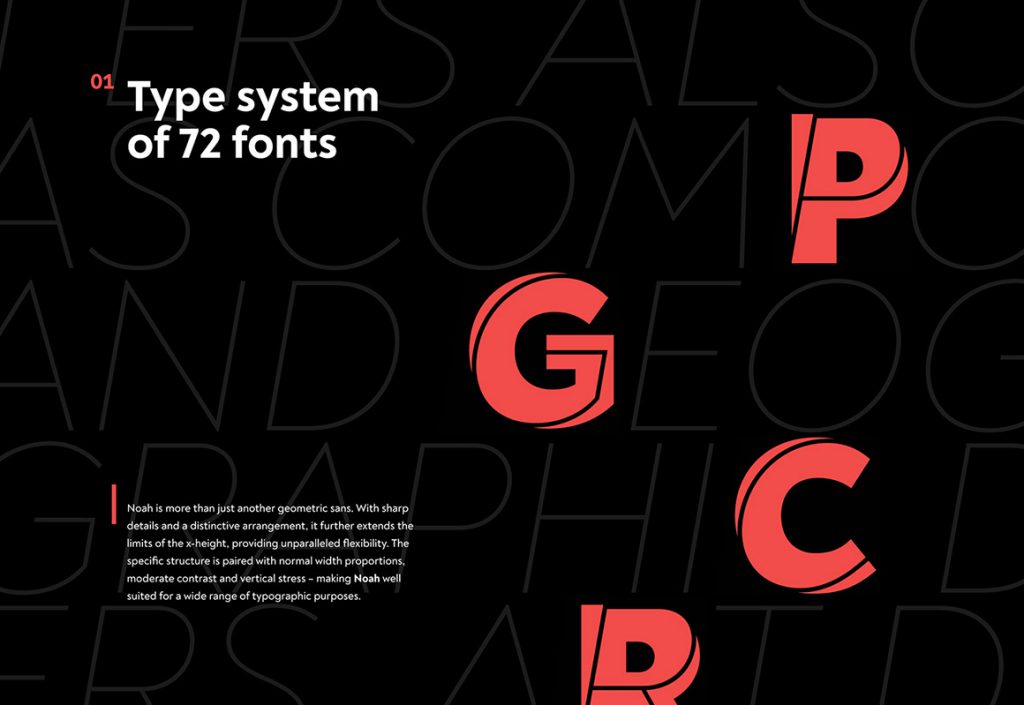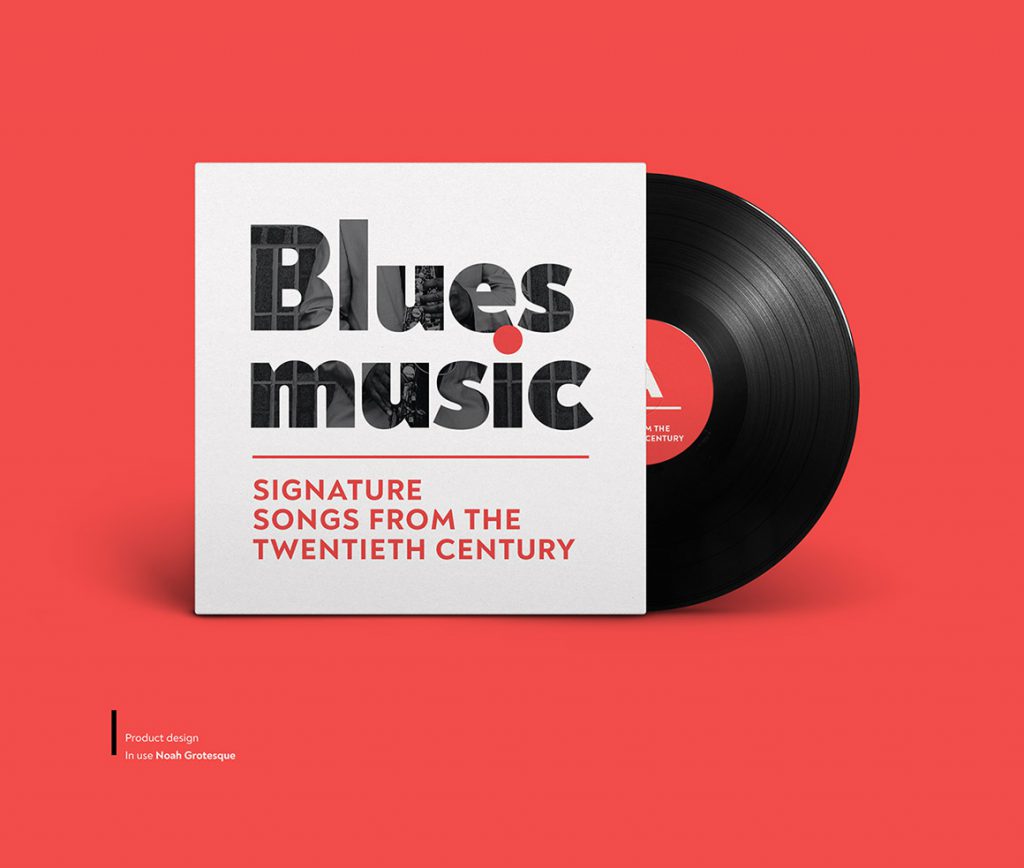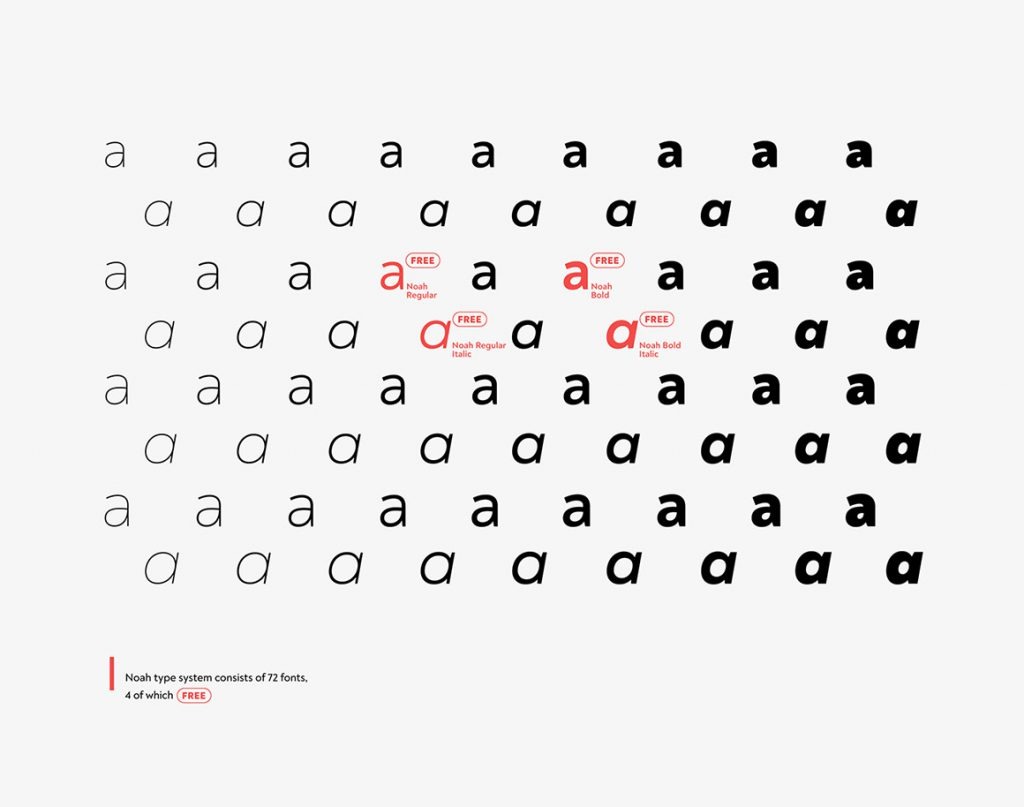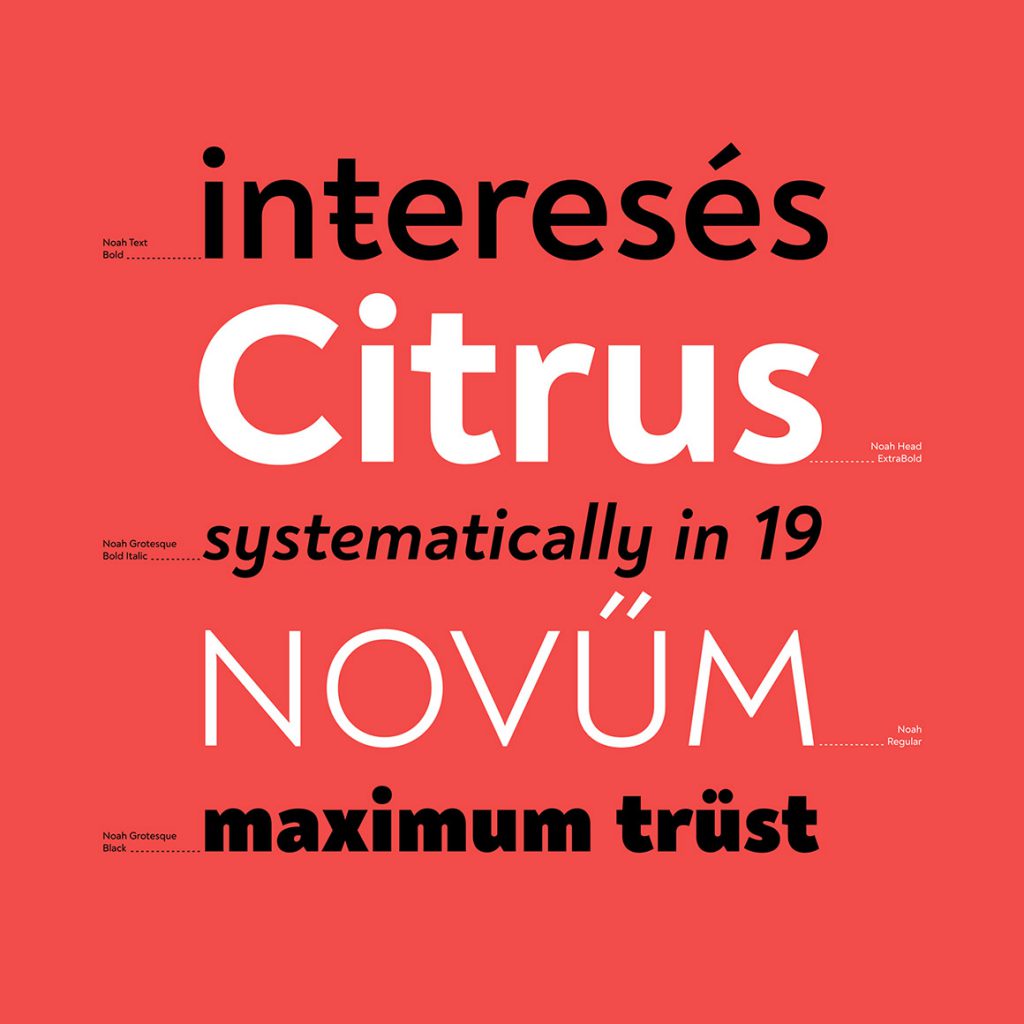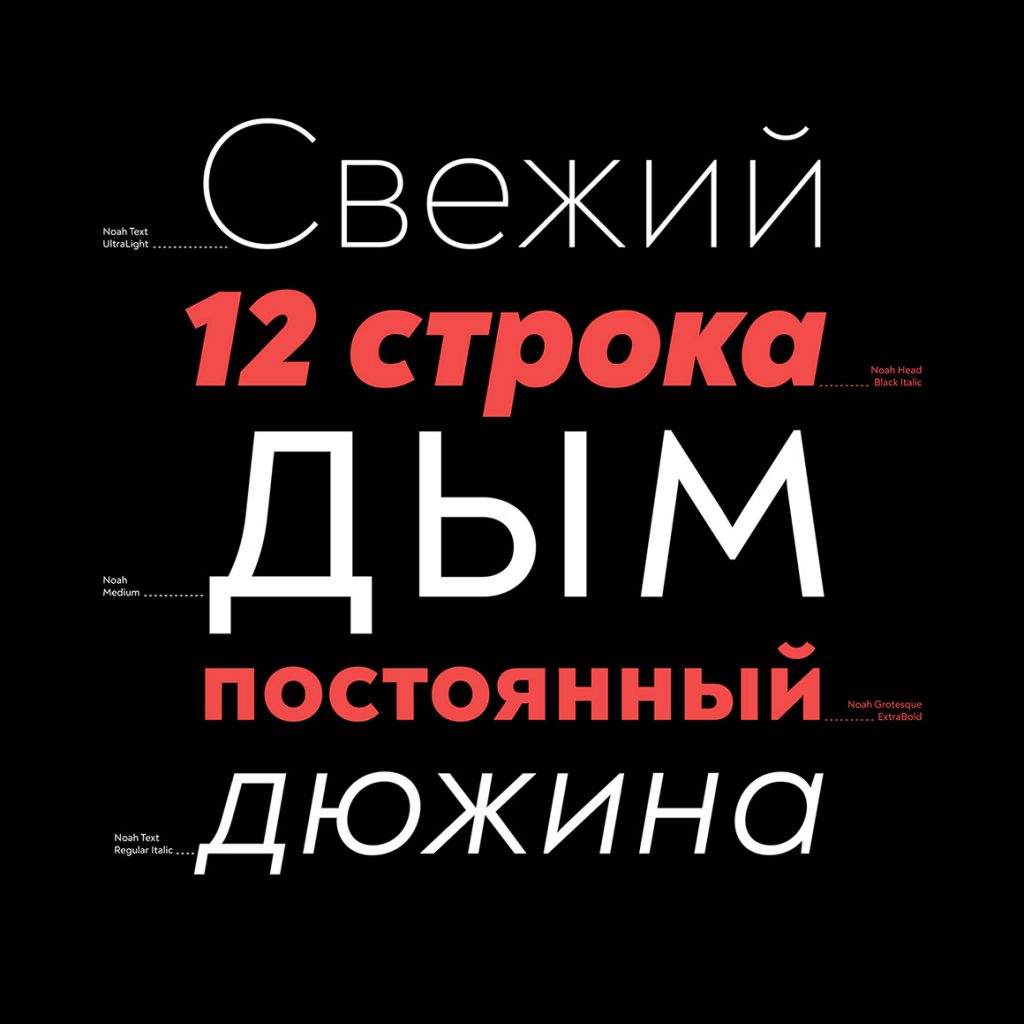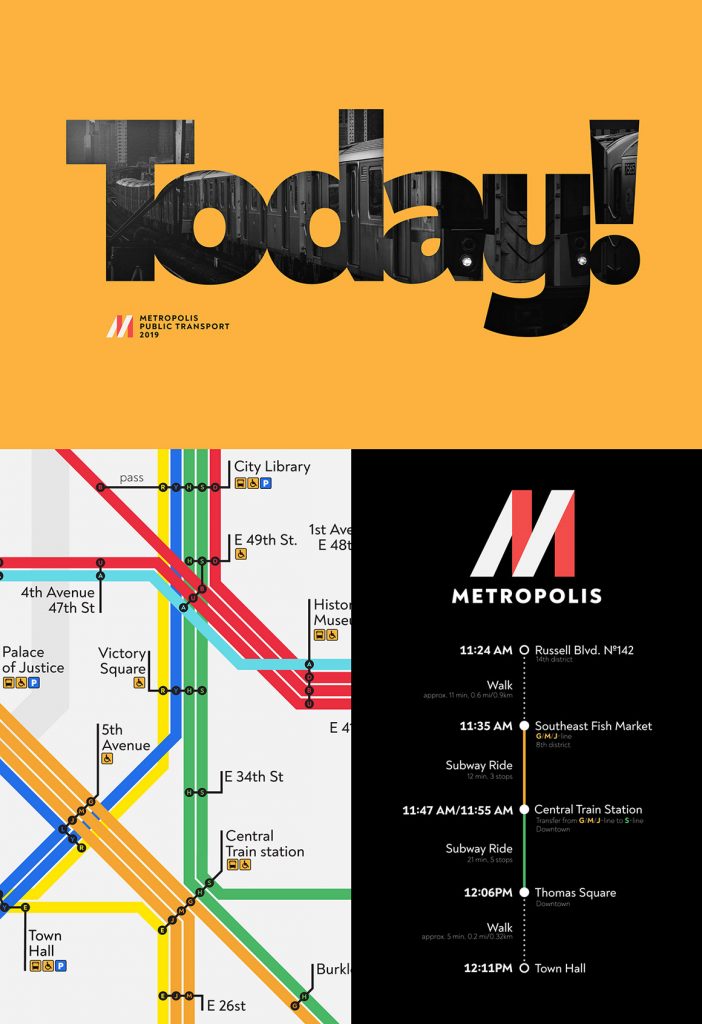
Noah: Free geometric sans-serif font
Noah is the latest wonderful Fontfabric creation: a geometric sans-serif fontwith sharp details and a distinctive arrangement. Its flexibility makes it suitable for a wide range of typographic purposes and you can see a few examples below. Regular, regular italic, bold and bold italic styles are free to download.